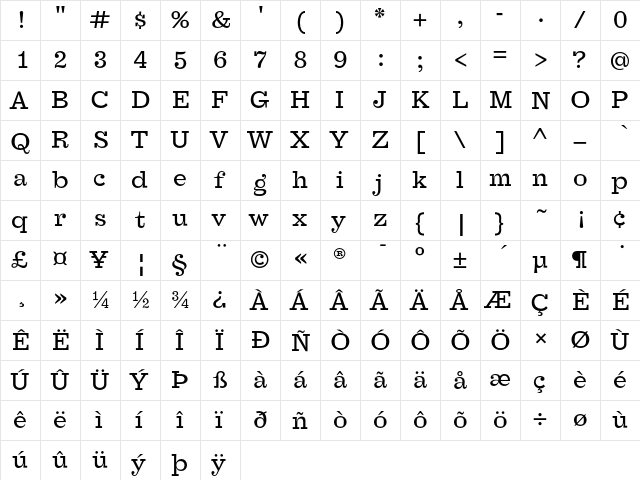
Farao OT Regular
Design Context for Farao OT Typeface
Farao OT takes a measured approach to typography — its balanced proportions and neutral character make it a reliable workhorse for both digital and print work.